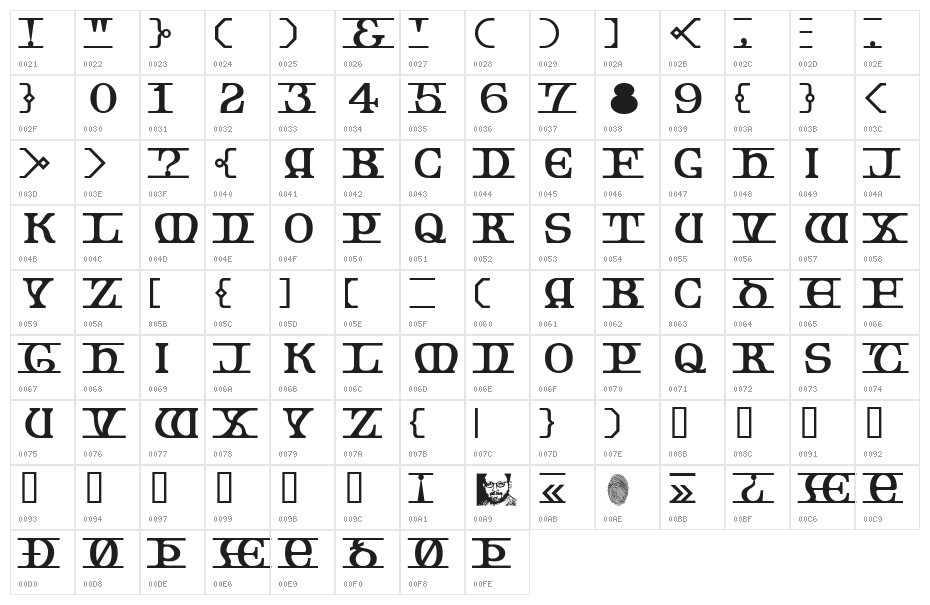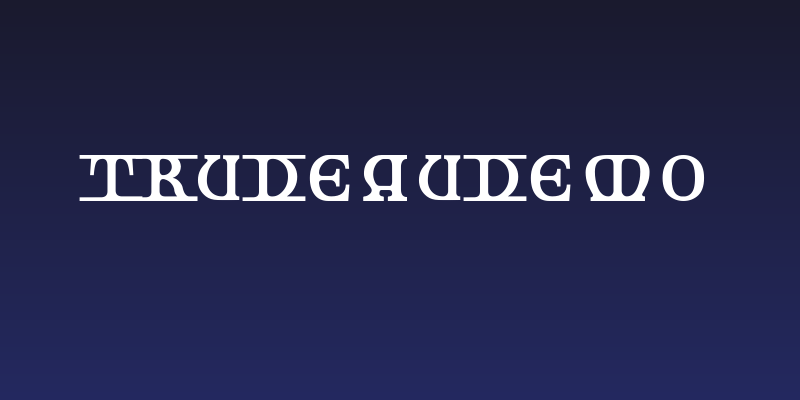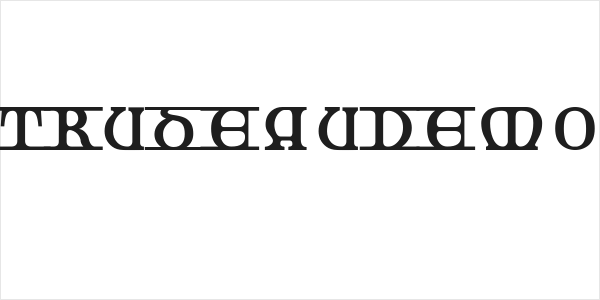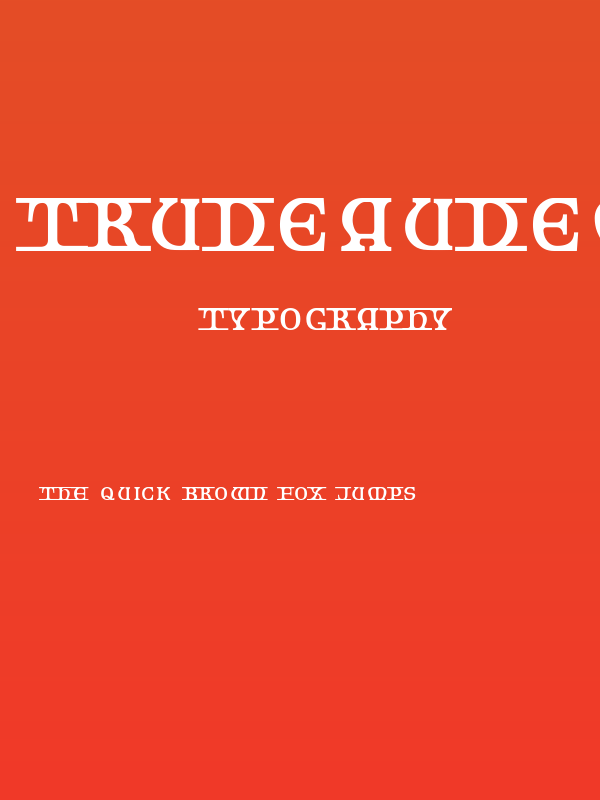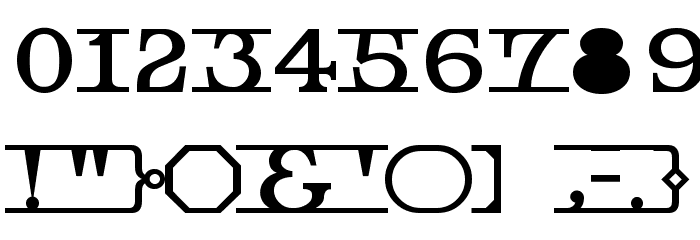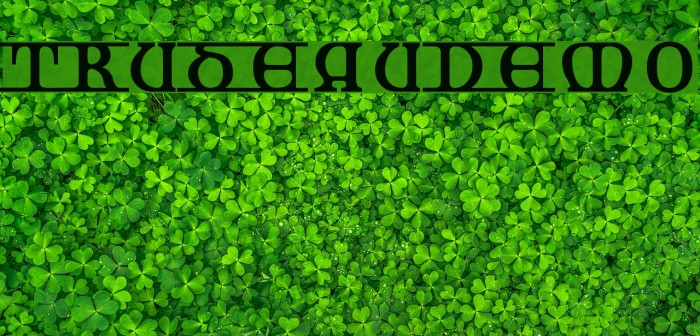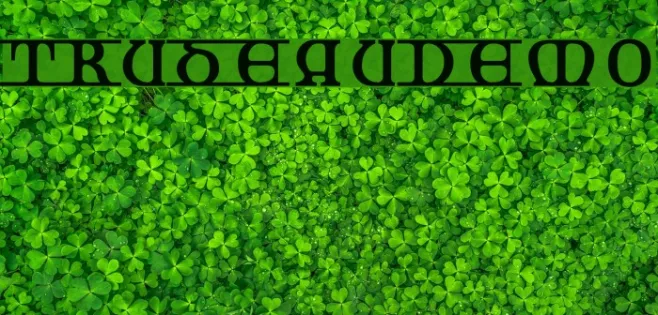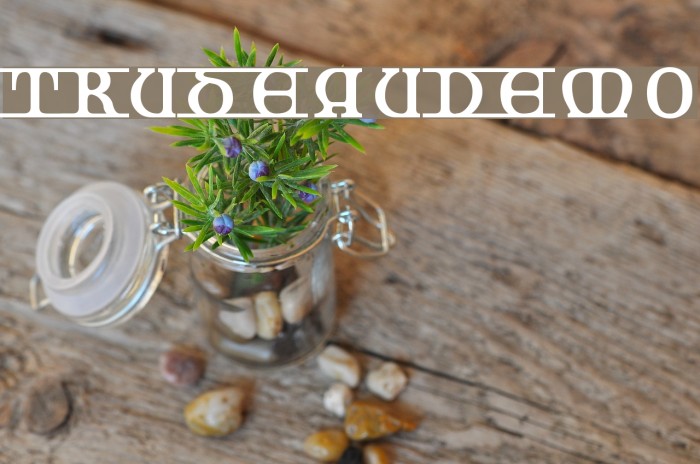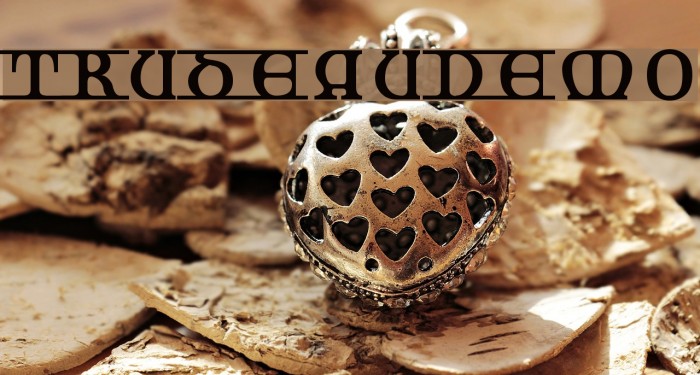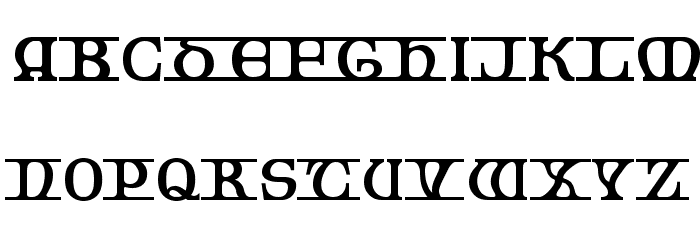
TrudeauDemo Font
TrudeauDemo Description
This font exhibits a unique and decorative style, characterized by its bold and geometric letterforms. Each character is designed with a distinct blend of curves and straight lines, creating a modern yet vintage aesthetic. The uppercase letters feature a consistent height and width, while the lowercase letters maintain a similar style, ensuring uniformity across the typeface. Numbers are bold and easily distinguishable, with a playful yet structured appearance. Special characters are creatively designed, adding to the font's overall decorative appeal. The font's design is both eye-catching and versatile, making it suitable for a variety of creative projects.
| Overall Style | Modern Vintage |
| Proposed Projects | Ideal for branding, posters, headlines, and creative design projects that require a distinctive and artistic touch. |